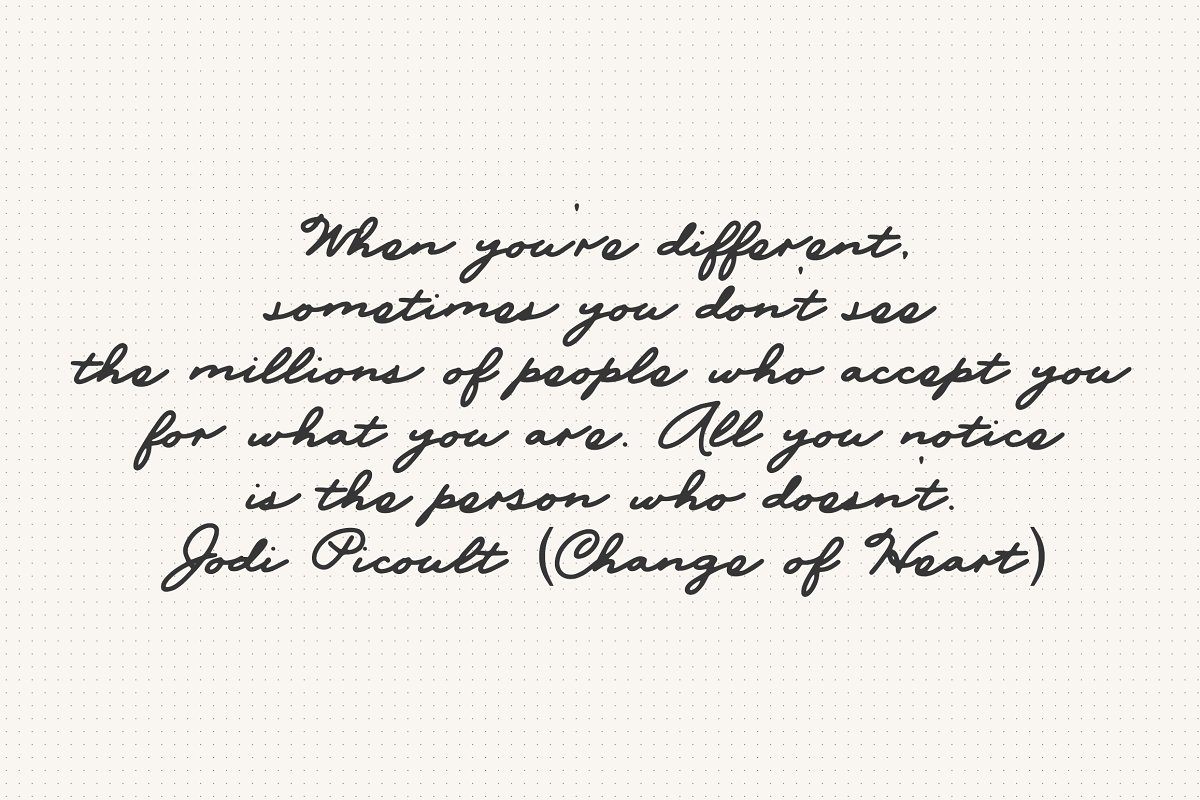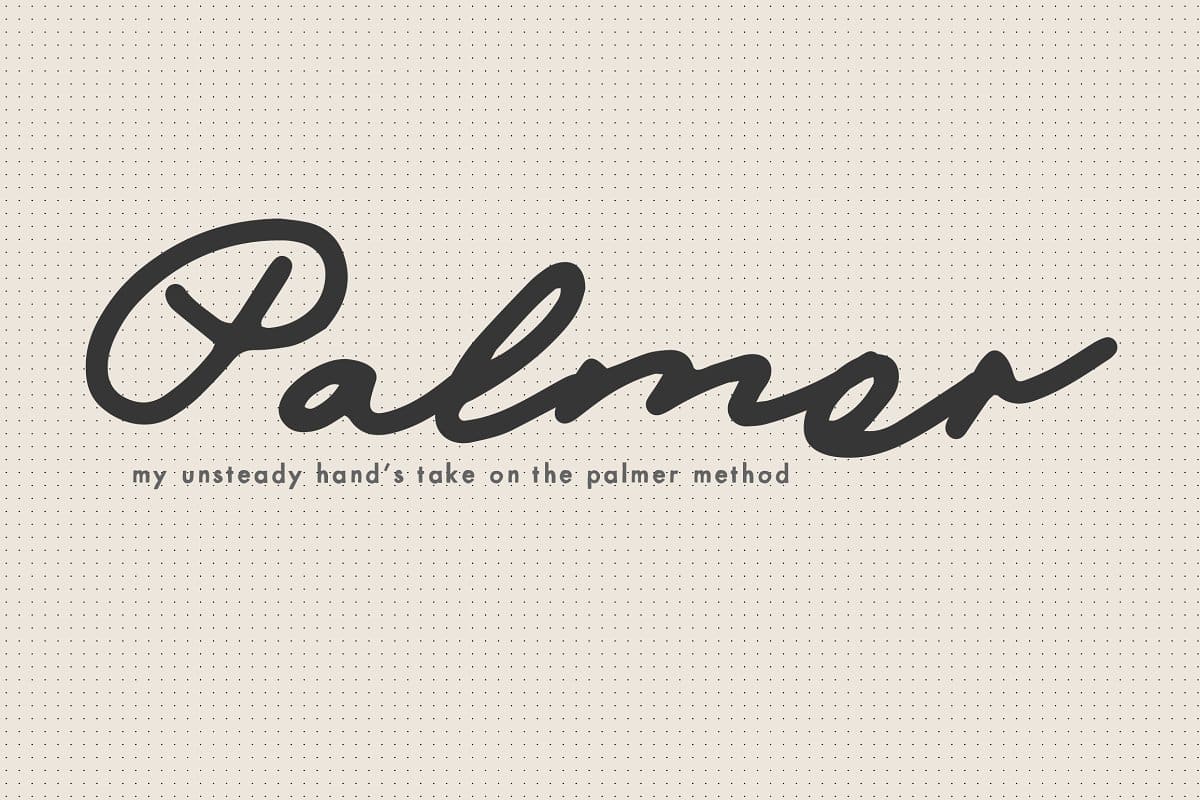
Mix Palmer Script Font
Introducing Mix Palmer Font. It is designed by Mikko Sumulong, this is a premium font, are sold on creativemarket, but it was great, it is free today for download. MIX PALMER, is my unsteady hand’s take on the palmer method of writing. This typeface is perfect for creating a roughly scribbled look. Very suitable for greeting cards, branding materials, business cards, quotes, posters, and more!This font are perfect for wedding postcard. Or you can create perfect and unique design of your logo, blog, stationery, marketing, magazines and more 🙂